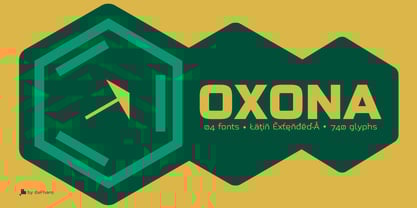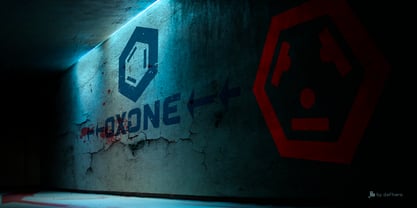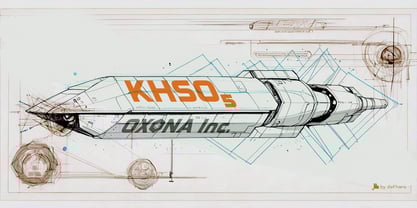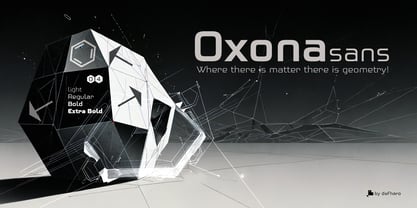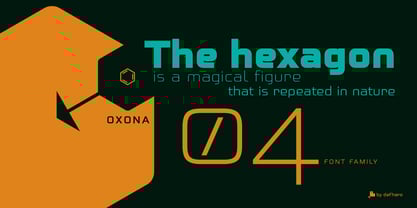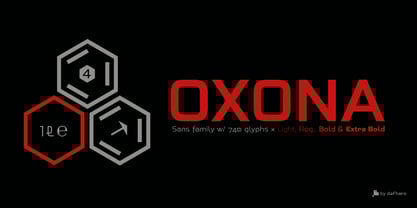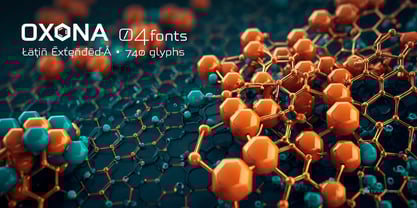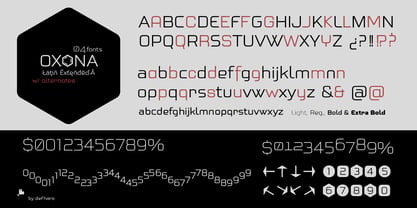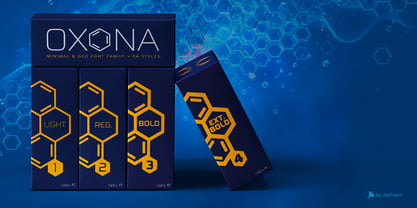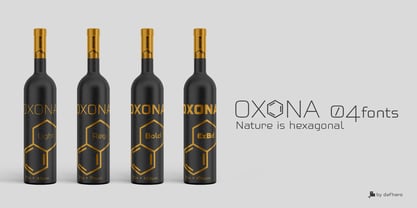
Oxona
The Oxona Font Family was designed by Fernando Haro and published by deFharo. Oxona contains 4 styles and family package options. More about this family
Oxona is my new conceptual and multipurpose typographic creation, born from precision and passion, also from the clarity and elegance of geometric sans serif design!
Meticulously designed to challenge convention, Oxona is a futuristic sans serif with meticulously calculated square proportions, which aims to redefine readability and visual impact. Every stroke, every curve and every angle has been polished to achieve a perfect balance between absolute clarity and aesthetic boldness, due to its cleanliness, modernity and functionality, the geometric structure and subtle optical adjustments that generate great harmony and make it a unique typeface, as rational as it is expressive. The absence of serifs makes it ideal for transmitting messages clearly on any medium, from digital screens to editorial prints.
• A balanced and precise design
Oxona is not only aesthetically appealing, but has been designed with an obsession with detail. From precision in metrics to millimetric kerning, each letter has been optimized to ensure flawless and harmonious readability. This meticulous approach makes it a multipurpose font, capable of adapting elegantly and strongly to any application. Corrected curves and pixel-corrected spacing ensure that no text feels forced.
• Four weights for maximum versatility
Light – Delicate and sophisticated, for texts that exude elegance
Regular – The balanced one, perfect for impeccable text bodies.
Bold – Strong and expressive, for titles that demand attention.
Extra Bold – The most daring, created to shout ideas with force.
• Advanced OpenType Technology
Oxona is not only beautiful, but also smart. It incorporates advanced OpenType features that make it even more powerful:
Alternative letters and numbers to give a unique twist to your designs.
Dynamic fractions and mathematical signs, ideal for technical or editorial projects!
Special arrows and symbols that enhance infographics and signage.
Plus, its compatibility with Latin Extended-A allows it to be used in more than 200 languages, opening the doors to global communication without barriers.